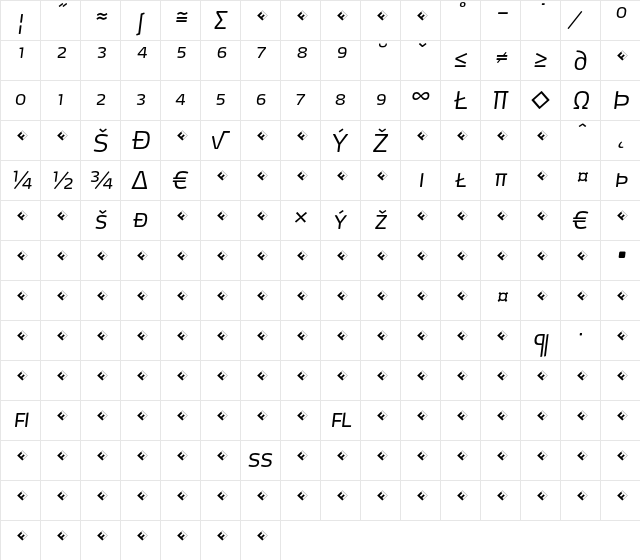
Max-LightItalicSCExpert Regular Font Preview
Design Context for Max-LightItalicSCExpert Typeface
Max-LightItalicSCExpert takes a measured approach to typography — its balanced proportions and neutral character make it a reliable workhorse for both digital and print work. The slanted form adds forward momentum and visual energy. The delicate stroke weight brings airiness and refinement to layouts.
Pro Tip: Try Max-LightItalicSCExpert for annotation and caption copy alongside an upright companion — the contrast in angle creates a dynamic but ordered typographic system.